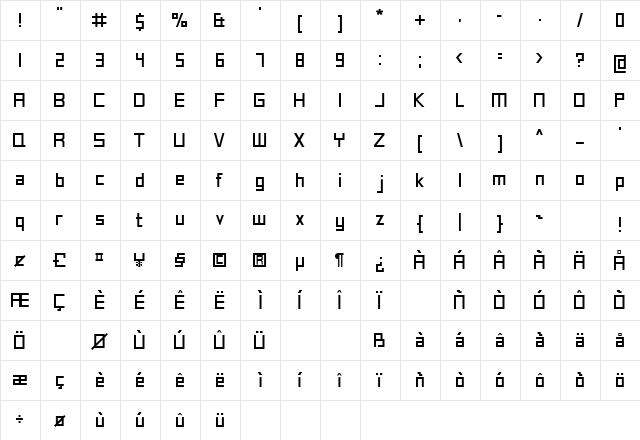
Cone Regular
Design Context for Cone Typeface
Cone is a composed and adaptable typeface that performs quietly and consistently across a wide range of design contexts.
Pro Tip: Pair Cone with a font of contrasting weight or personality to build a more expressive typographic hierarchy.